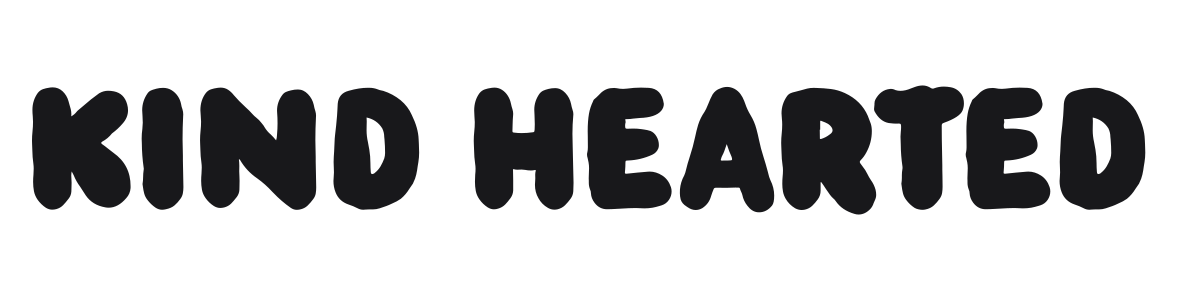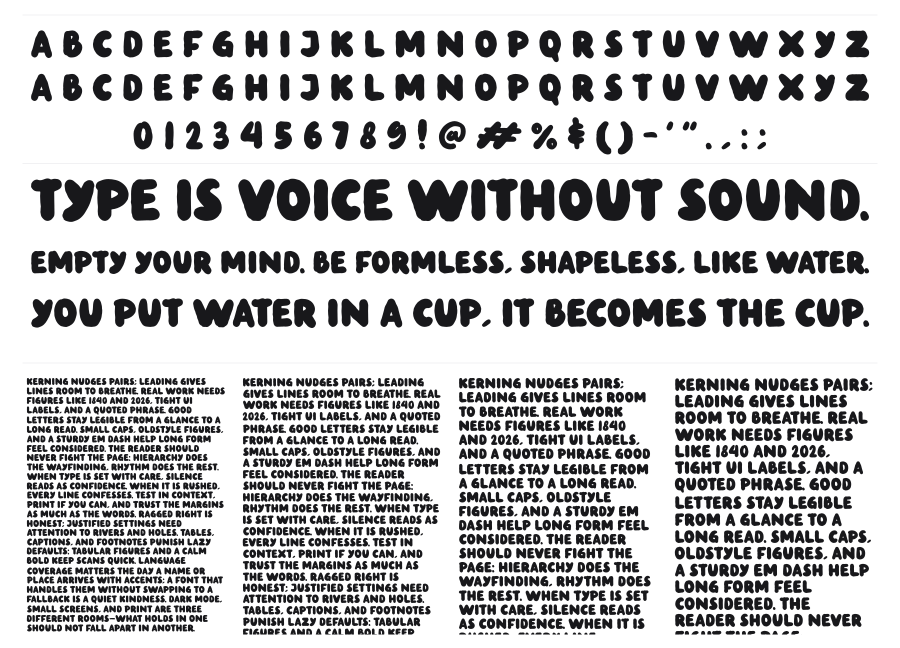
Kind Hearted
Kind Hearted is a bubbly, heavy-weight display font from Fikryal Studio with inflated rounded strokes that give it a cartoon-like, balloon quality. The near-monoweight construction and loose hand-drawn feel keep it warm and approachable rather than stiff. It lands well on children's content, food packaging, game logos, and anywhere a friendly shout is needed.